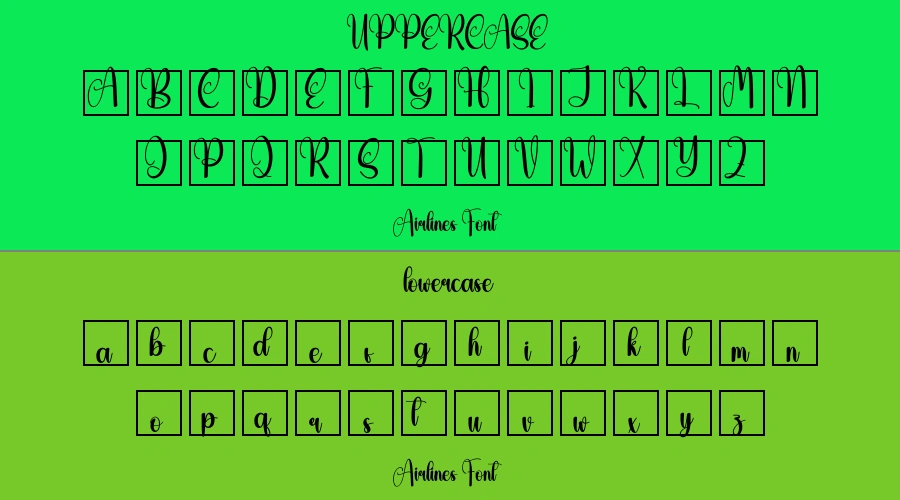
About Airlines Font
Airlines Font stands out for its distinctive combination of rounded corners and durability. Ideal for book design, it provides the clarity and traditional values that professional projects demand. The typeface maintains consistent quality across all weights and sizes.
Key features include refined consistent rhythm and practical titling alternates, enhancing typographic expression. In packaging applications, Airlines Font demonstrates exceptional headline impact. The stroke modulation and technical tradition contribute to its distinctive character and professional appeal.
Airlines Font |